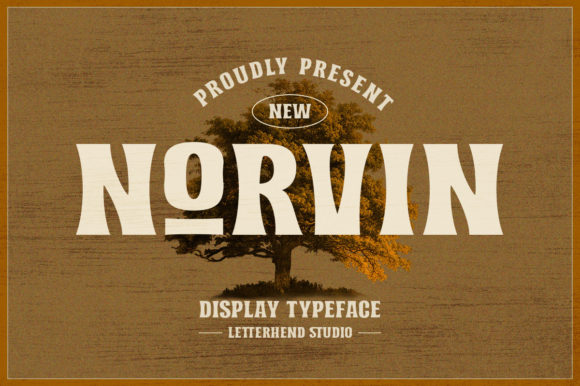
The Norvin Font is the cornerstone of vintage branding. Its bold strokes and stately serifs exude a classic elegance that evokes the golden age of design. Whether you're crafting logos, headlines, or signage, Norvin commands attention with its timeless aesthetic.
Beyond its visual appeal, Norvin is a versatile workhorse that effortlessly adapts to any project. From invitations to labels, magazines to books, its timeless charm adds a touch of sophistication to every creation. Its versatility extends to the digital realm, where it shines on websites, social media, and e-commerce platforms.
But Norvin's true magic lies in its ability to evoke emotions. Its vintage flair evokes nostalgia and a sense of enduring quality, making it the perfect choice for brands seeking to connect with consumers on a deeper level. Its strong, confident strokes convey a sense of authority and reliability, inspiring trust and confidence.
With Norvin Font, you unlock the power to create designs that transcend time. Its classic silhouette and emotional resonance make it the ideal choice for businesses, designers, and individuals seeking to make a lasting impression.
So why settle for ordinary fonts when you can elevate your projects with the timeless allure of Norvin? Its versatility, emotional impact, and enduring style will transform your designs into captivating creations that resonate with audiences of all ages.